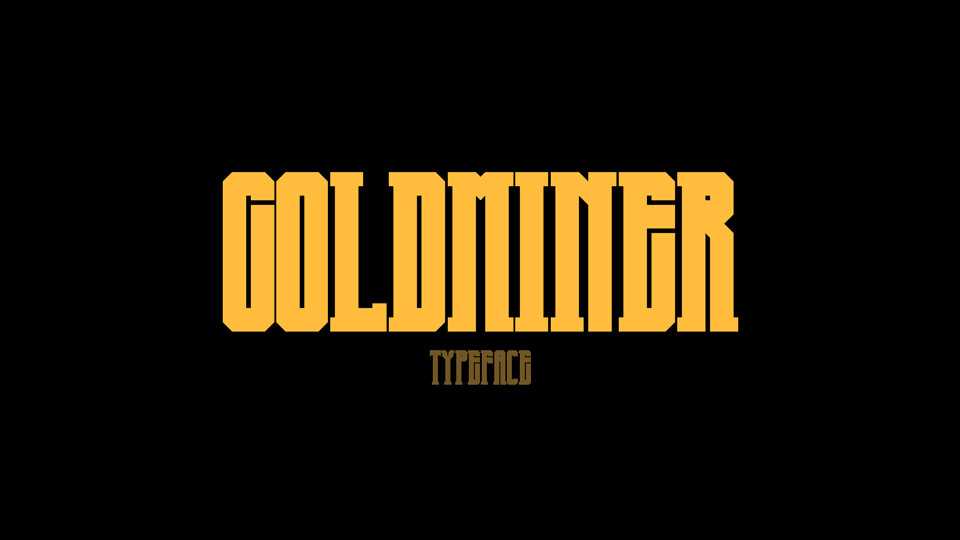
Download Goldminer font, a ultra narrow display typeface with retro feel. Goldminer is perfect for vintage designs, logos, headlines, branding, merchandise and more.
Designer: Winter Design Studio